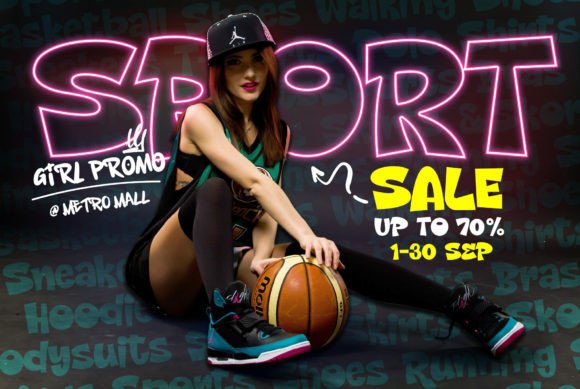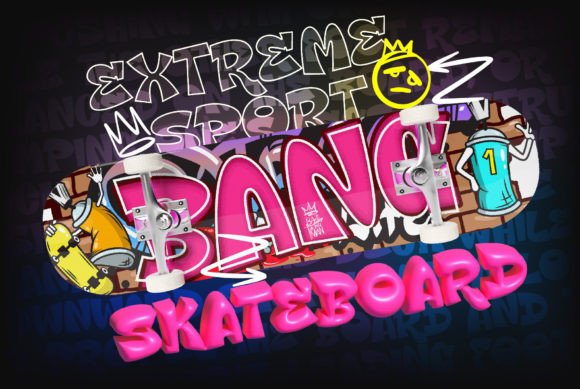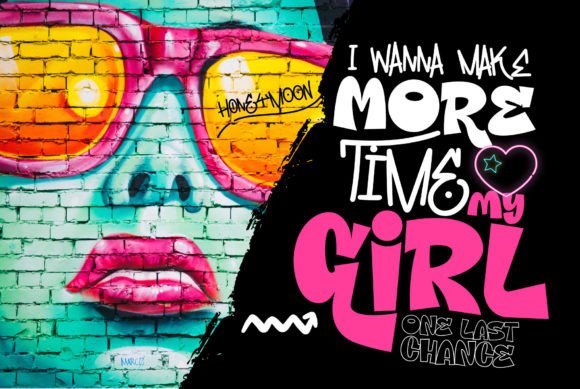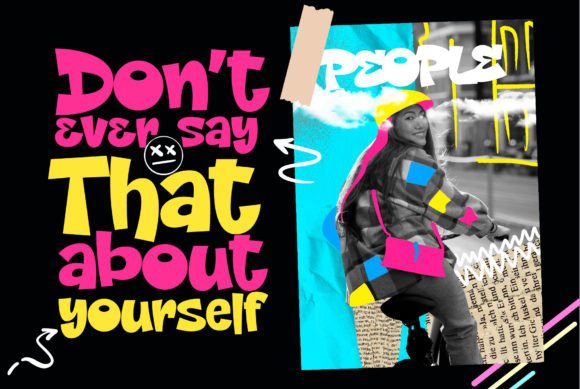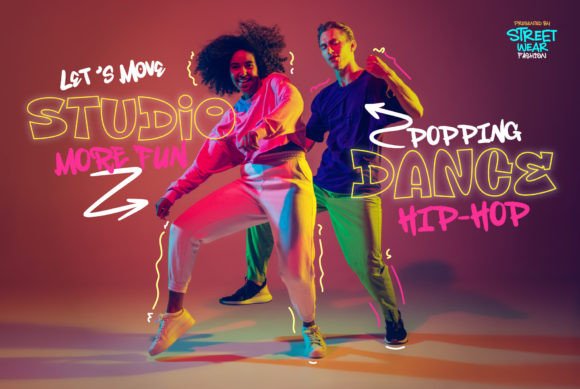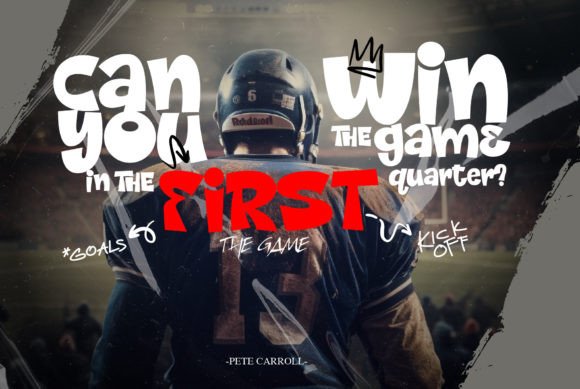
Introduction to Nice Girl Font
Have you ever stared at a blank canvas, your mind buzzing with creative ideas, yet struggling to bring them to life? This is a moment we’ve all experienced as designers – the moment of uncertainty, when our imagination is racing, but our tools are lacking. It’s in these moments that we seek the perfect design resource to elevate our creations and make them truly stand out.
Enter the Nice Girl Font, a bold and unique graffiti display font that has the potential to take your creative projects to new heights. With its masterful design, this font is sure to become a favorite among designers, offering a high-quality resource that’s free to download and customize.
Key Features of Nice Girl Font
- High-quality design: The Nice Girl Font is designed with precision and care, making it a great addition to any creative project.
- Unique and feminine design: The Nice Girl Font features a unique and feminine design, making it perfect for projects that require a touch of elegance and sophistication.
Honest Review: Nice Girl Font
As a designer, I’m always on the lookout for high-quality fonts that can elevate my creative projects. The Nice Girl Font has caught my attention, and I’m excited to share my thoughts on this design resource.
What works well: ✨ The Nice Girl Font is available for free download, which is a huge plus for designers on a budget. The font has a beautiful, playful aesthetic that’s perfect for feminine and whimsical designs. The transparent background makes it easy to use as a layer in your creative project, and the high-quality design ensures that it will look great on various mediums.
- Perfect for feminine and whimsical designs
- High-quality design for great results
Overall, I’m impressed with the Nice Girl Font. It’s a great design resource for designers who are looking for a high-quality, free font that’s perfect for creative projects. With a little practice and patience, I think this font has the potential to become a staple in many designers’ toolkits.